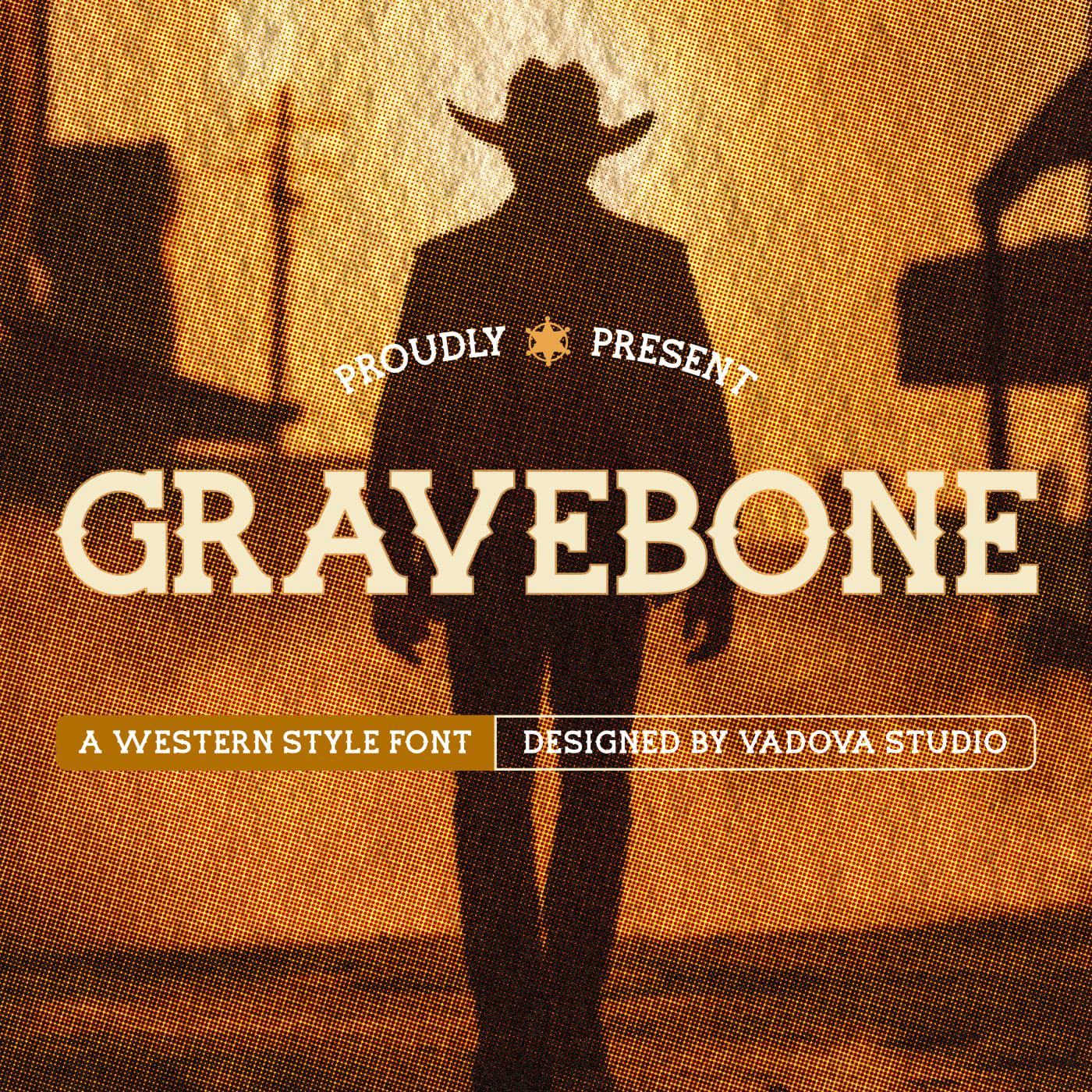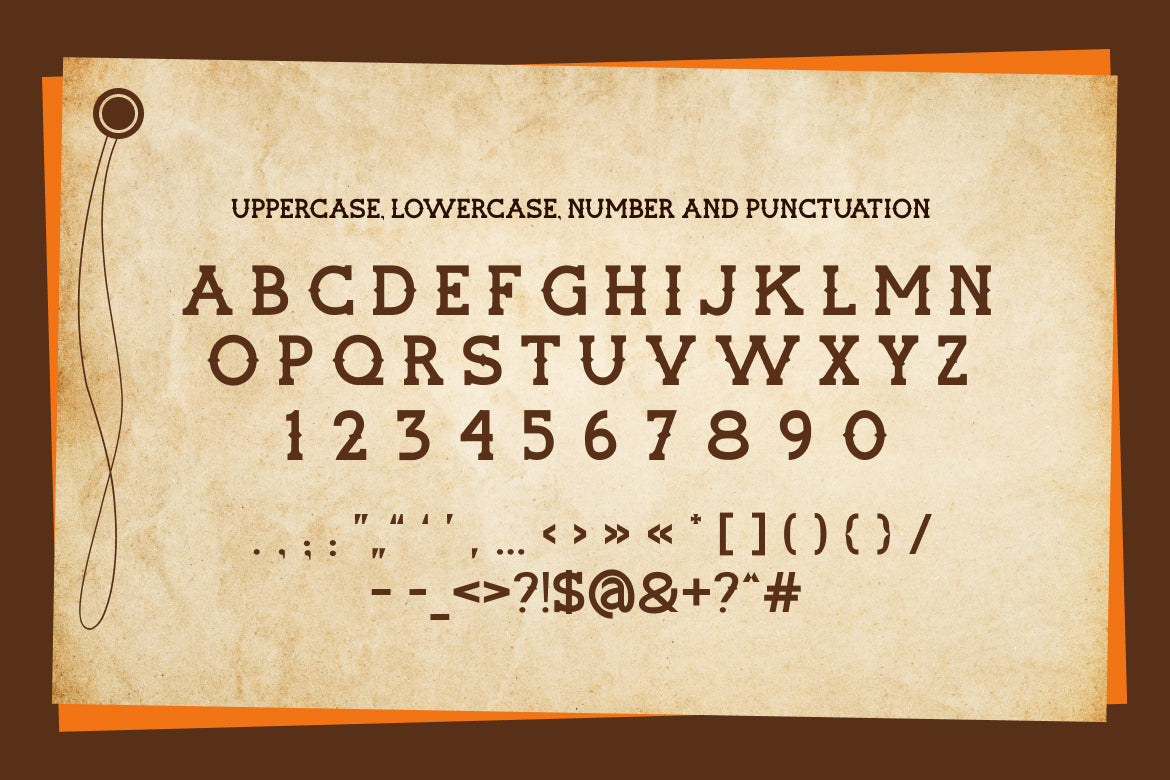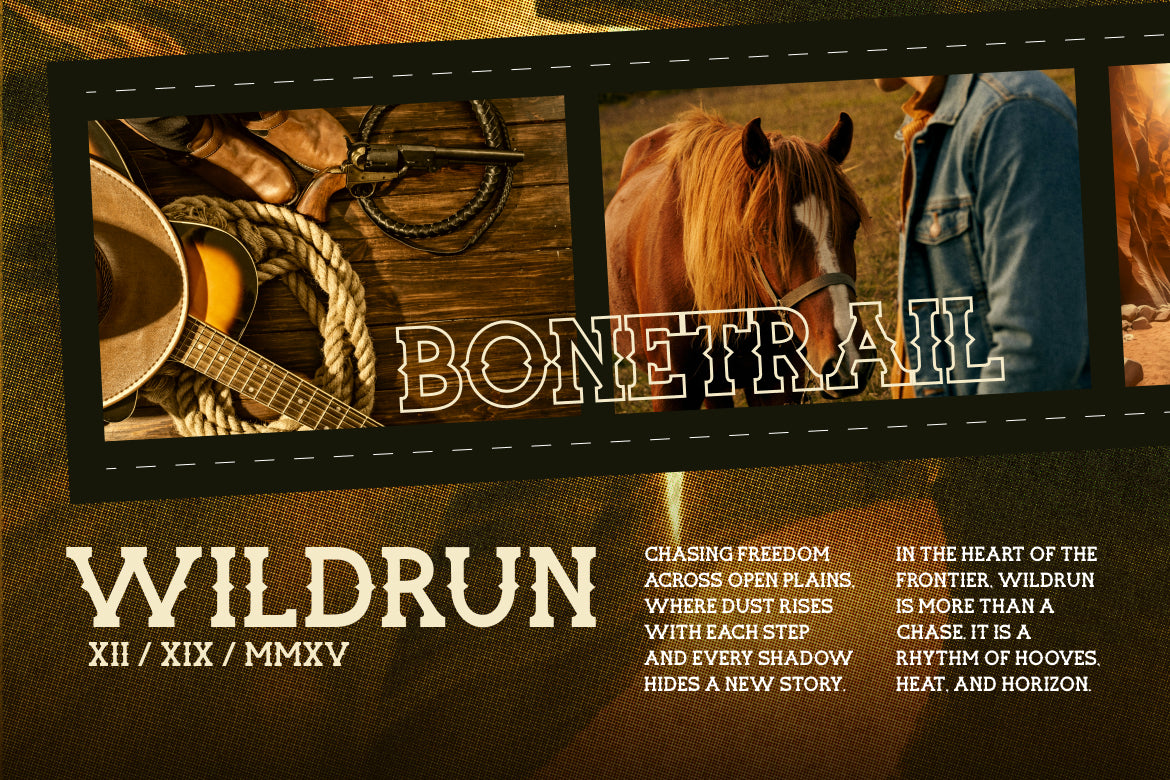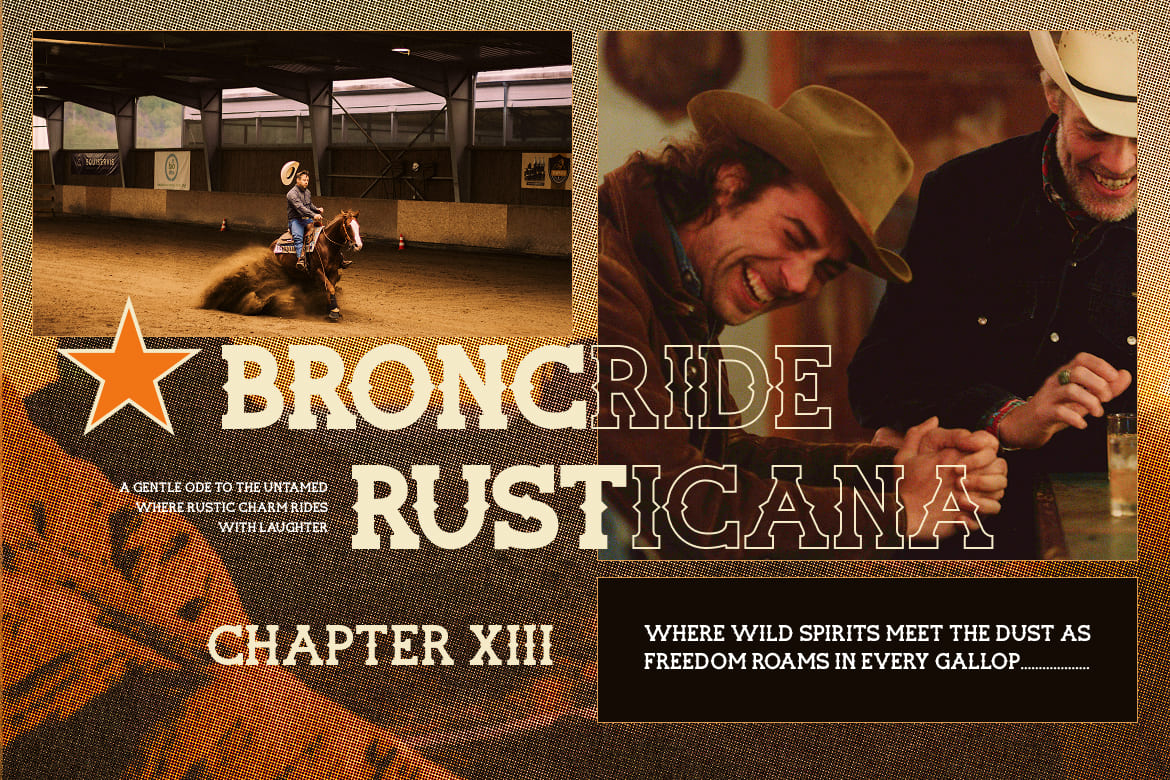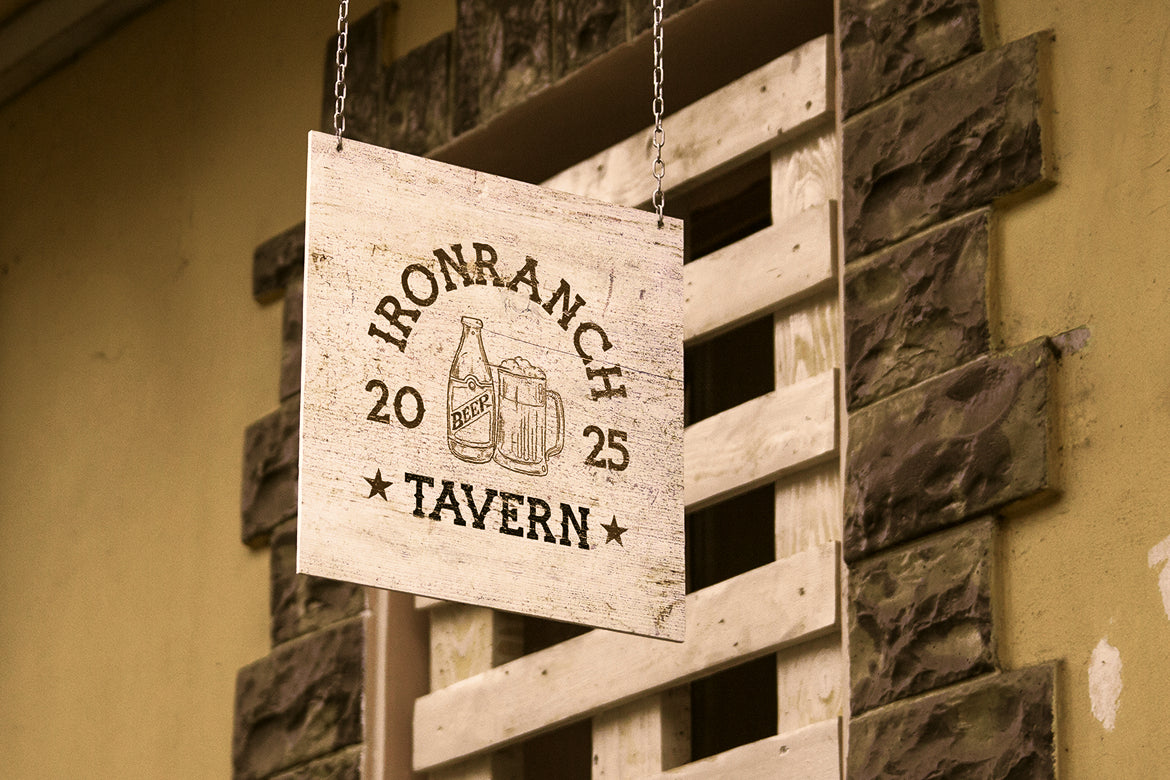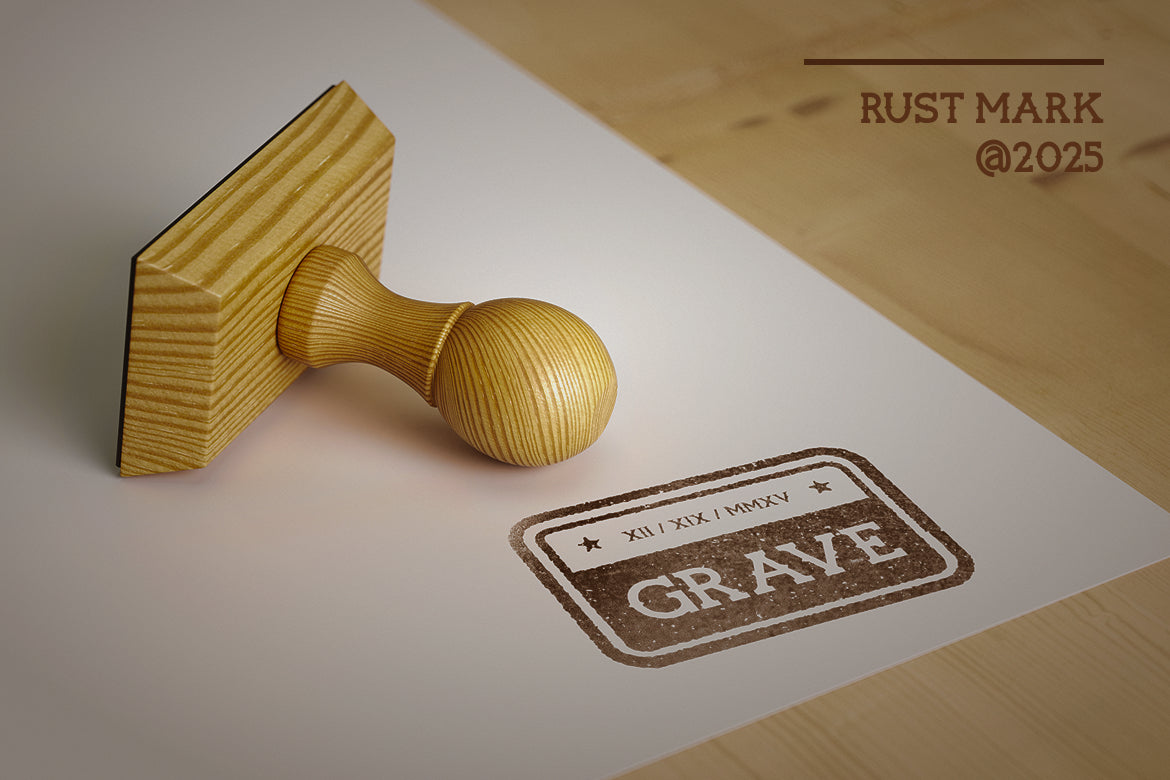
Gravebone Western Style Font
Gravebone Western Style Font is a bold western-style serif font featuring rugged, vintage-inspired letterforms perfect for projects needing a touch of cowboy flair. With its rustic textures and classic typography elements, this font evokes the Wild West, making it ideal for posters, logos, branding, book covers, and themed events. The font includes uppercase, lowercase, numerals, and punctuation, giving full versatility for any design need. Whether you're creating a saloon-style banner or a retro Western title, Gravebone brings authentic character and bold impact.
Gravebone Western Style Font is a bold, serif display font with rugged, vintage-inspired letterforms. It includes uppercase and lowercase characters, numerals, and punctuation, and is available in TTF, OTF, and WOFF formats.